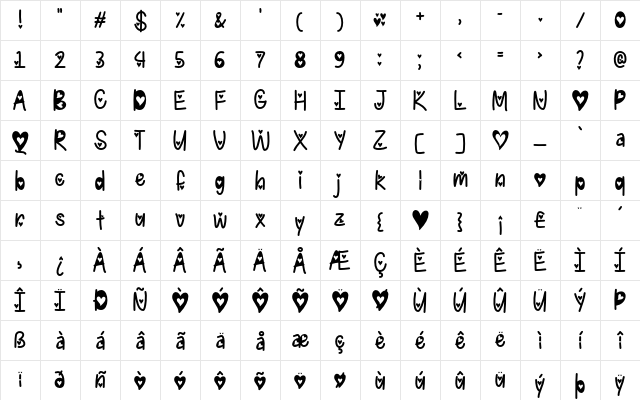
I Found My Valentine Hearted Regular Free Font
I Found My Valentine Hearted Regular
Foundry: Misti's Fonts
Designer: Misti's Fonts
Design Context for I Found My Valentine Hearted
I Found My Valentine Hearted is a composed and adaptable typeface that performs quietly and consistently across a wide range of design contexts.
Who designed the I Found My Valentine Hearted Regular font?
This font was published by Misti's Fonts. Check the technical specs section for copyright and designer details.